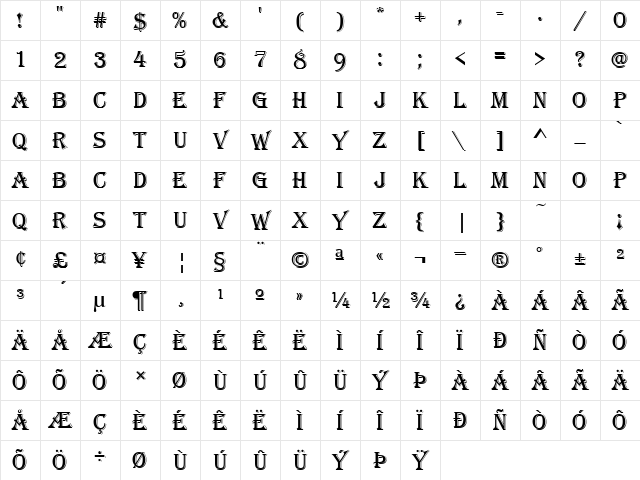
Algerian Regular Free Font
Algerian Regular
Design Context for Algerian
Algerian is a composed and adaptable typeface that performs quietly and consistently across a wide range of design contexts.